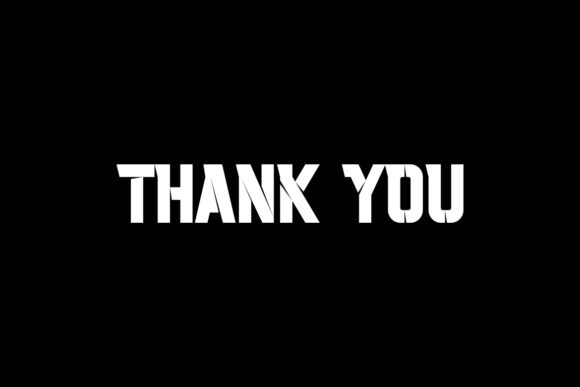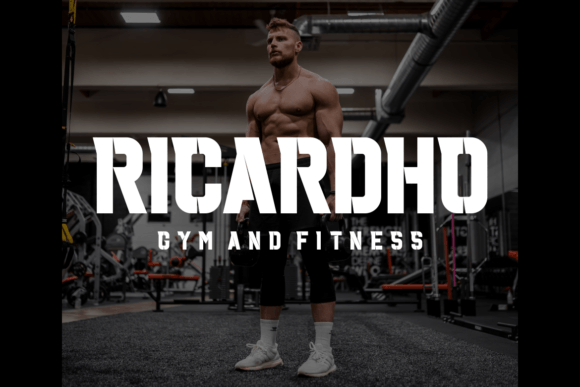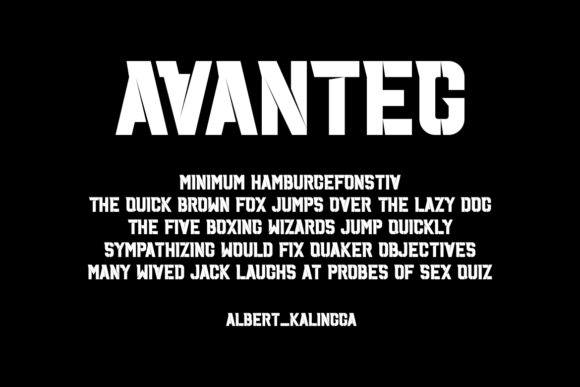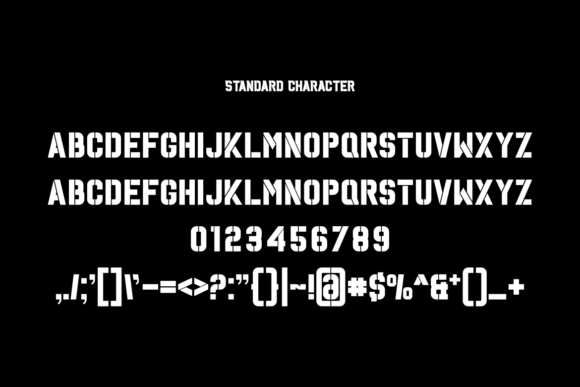
Discover the Unbridled Potential of Avanteg Font
There’s that moment when you’re working on a project, and the words just won’t flow the way you envision them. You’re searching for the perfect font to bring your ideas to life, but nothing seems to fit. It’s like your creative spark is waiting for the right ignition. That’s where the Avanteg Font comes in – a bold and assertive sans serif font designed to elevate your creations and leave a lasting impression.
This powerful font is more than just a tool; it’s a statement piece that can transform any project into a masterpiece. Whether you’re designing a bold headline or crafting a striking visual identity, Avanteg Font is an invaluable asset for designers looking to make a mark.
Key Features of Avanteg Font
- Character Set: The font includes a comprehensive character set, covering Latin, Cyrillic, and Greek alphabets, as well as a range of punctuation and special characters.
- Unique Characteristics: Avanteg Font features a distinctive, modern design with clean lines and geometric shapes, making it ideal for use in branding, advertising, and editorial design.
Avanteg Font Review
I’ve had the chance to work with Avanteg Font, and I must say it’s been a unique experience. Let’s dive into what works well and what doesn’t.
- Unique aesthetic: Avanteg Font has a distinct, futuristic feel that sets it apart from more traditional fonts.
- Wide language support: It includes a wide range of languages, making it a great option for global projects.
- Customizable: Avanteg Font offers various font styles and weights, allowing for a high degree of customization.
- Limited legibility: In certain font sizes or on low-resolution displays, Avanteg Font can become difficult to read.
- Not ideal for body text: Its unique style makes it better suited for headings or titles rather than large blocks of body text.
- May not be suitable for all audiences: The font’s futuristic feel may not appeal to everyone, particularly those who prefer more traditional typography.
Overall, Avanteg Font is a bold and eye-catching choice that’s perfect for projects that require a touch of futurism. However, it may not be the best fit for every design or audience.
Getting the Most Out of Avanteg Font
For best results, use Avanteg Font in conjunction with other design elements that complement its unique style.
Consider using bold colors, geometric shapes, and minimalist backgrounds to create a visually striking design.
Avanteg Font is ideal for:
1. Modern branding and logo design.
2. Fashion and lifestyle marketing materials.
3. Minimalist website design.
4. Creative digital art and illustrations.